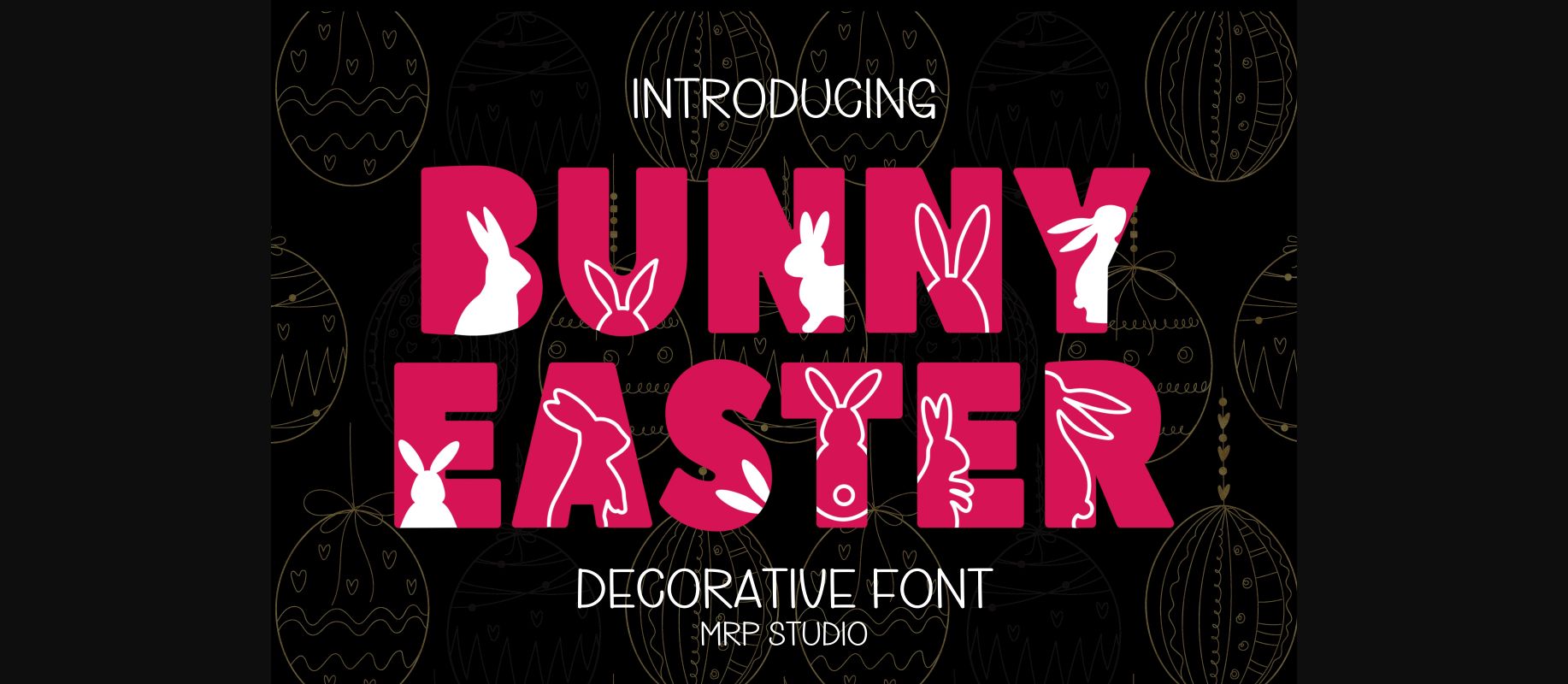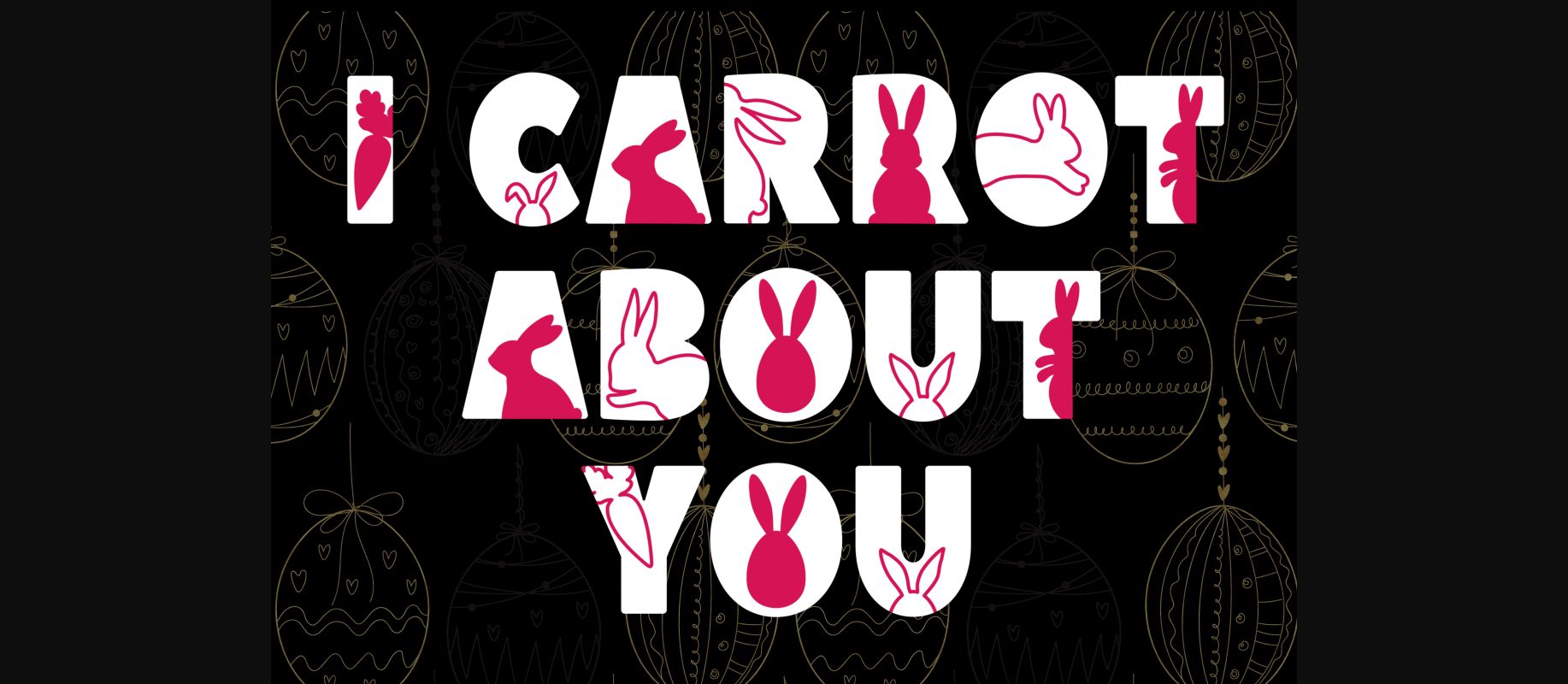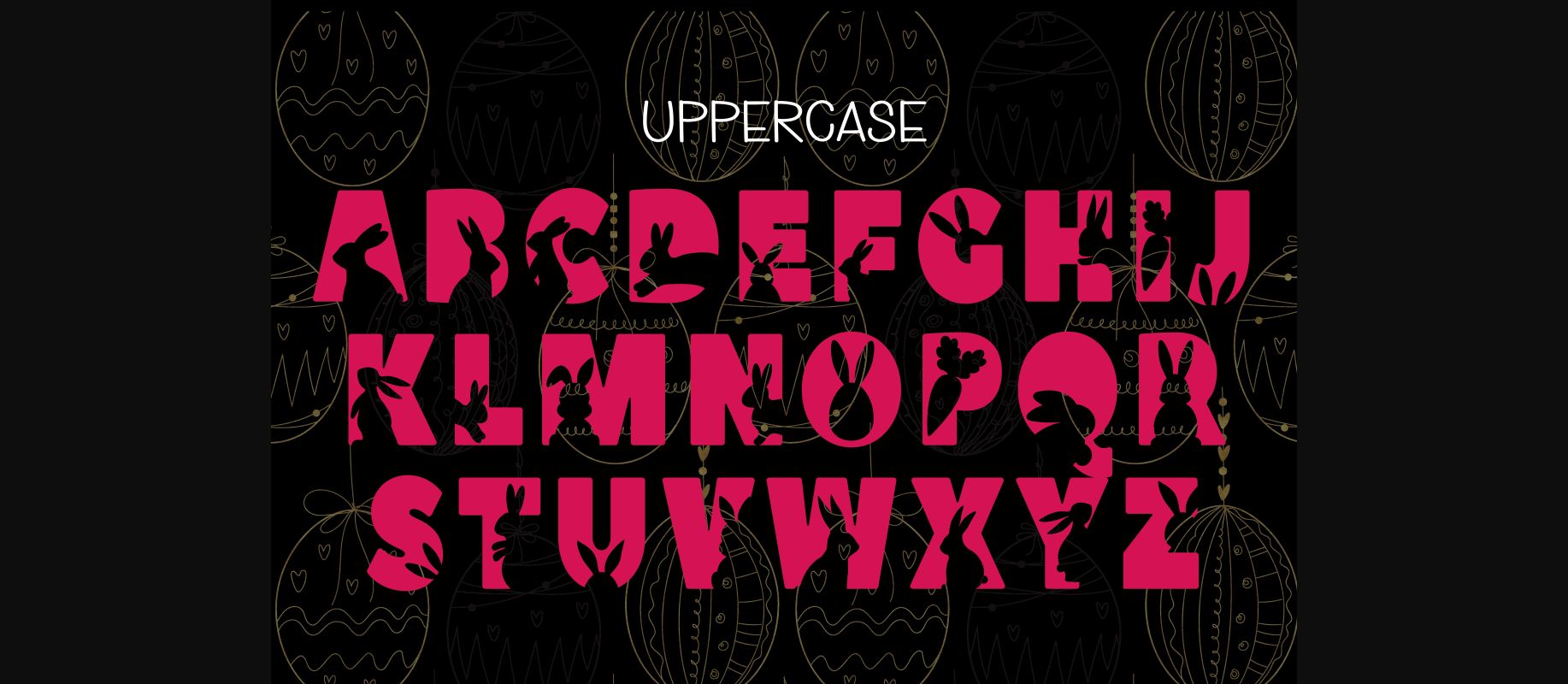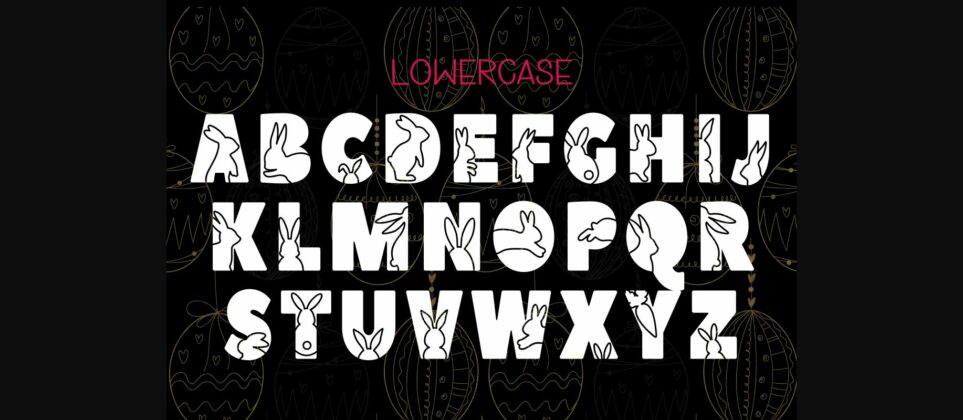
Bunny Easter Font
About Bunny Easter Font
Bunny Easter is a cute and adorable decorative font. It would be awesome for your lovely Easter projects bringing a touch. Add it to your creative ideas and notice how it makes them stand out!